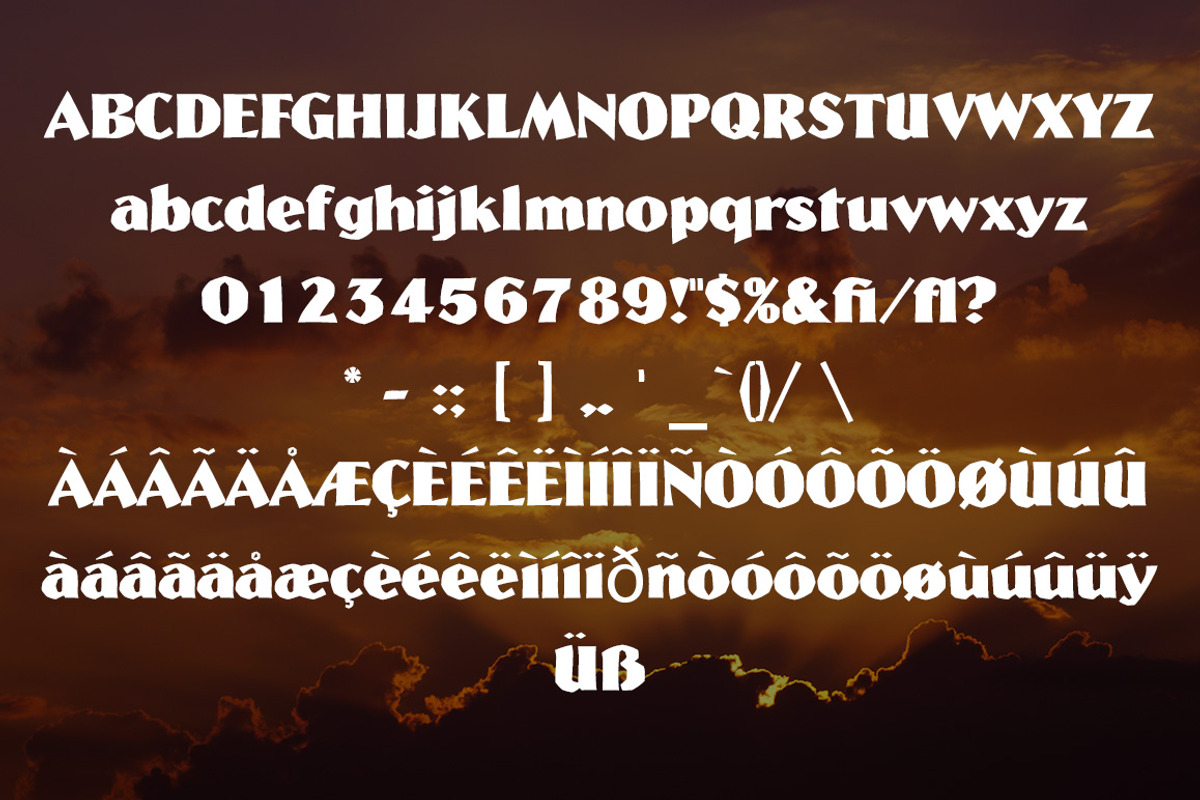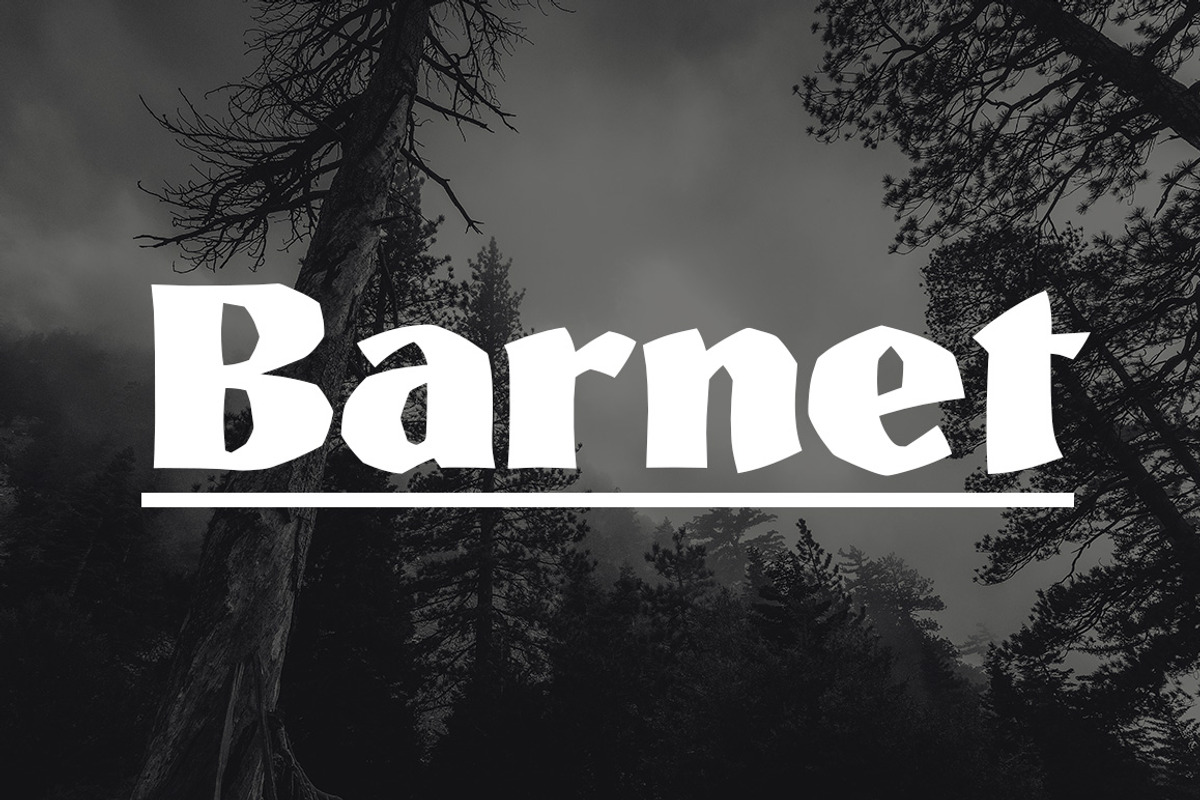
Barnet Font
Barnet is a display Font great to use for Posters, Logos, Tittles , Logos .. any many more.
- Uppercase & Lowercase
- Numbers & Simbols
Why Barnet Font is worth a look
Barnet Font by DCD Vector Co. fits naturally into Branding, posters, packaging, typography.